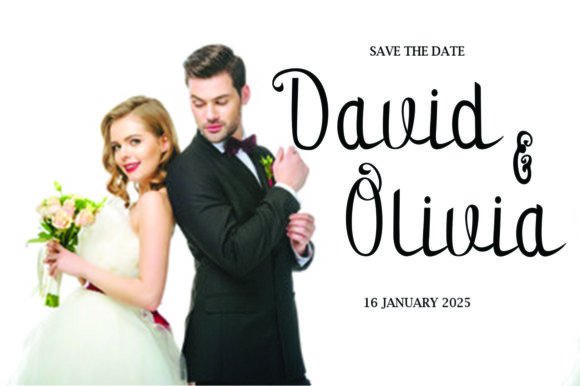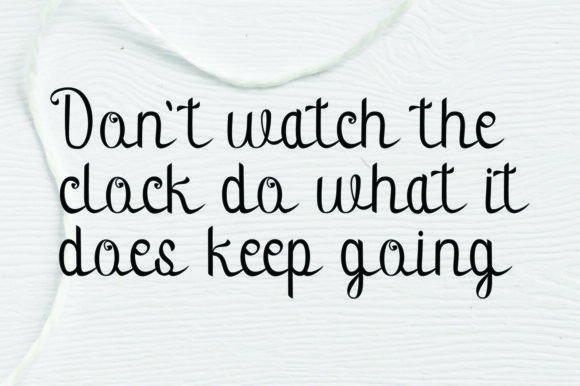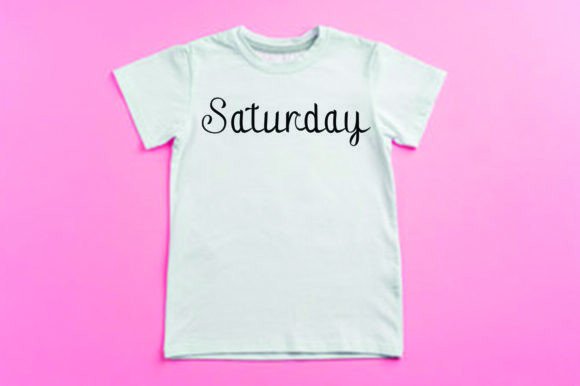
Introduction to Renata Font
Have you ever stared at a blank page, struggling to bring your creative vision to life? For designers, this moment is all too familiar. But what if the perfect font could spark that initial spark of inspiration? Enter Renata Font, a stunning modern script font designed to elevate your next creative project. With its unique, irregular baseline and trendy feminine style, Renata Font is sure to captivate your audience and leave a lasting impression.
Whether you’re crafting a wedding invitation, designing a logo, or simply adding a touch of elegance to a greeting card, Renata Font is the perfect design resource to have in your toolkit. And the best part? This versatile font is available for free download, complete with initial and terminal letters, alternates, and multiple language support.
- High-quality design: Renata Font is a beautifully crafted typeface perfect for creative projects that demand attention to detail.
- Unique characteristics: Renata Font features a unique blend of modern and vintage elements, making it an excellent choice for designers seeking a distinctive look for their creative project.
Honest Review: Renata Font
I recently stumbled upon the Renata Font, and I must say it’s been a game-changer for my creative projects. This high-quality font is a valuable design resource that can elevate any project with its elegant and sophisticated feel.
What works well: ✨ The transparent background of the font makes it incredibly versatile, allowing me to use it for a wide range of design elements, from headers to icons. The font also comes in various weights and styles, giving me plenty of options to experiment with.
Overall, I’m really impressed with the Renata Font. It’s a high-quality design resource that’s perfect for professionals and hobbyists alike. With its elegant design and transparent background, it’s a must-have for any creative project.
- Various weights and styles
- Perfect for creative projects
Renata Font
Renata Font is a high-quality design resource ideal for creative projects. This font is available for free download, allowing designers to incorporate it into their work seamlessly.
Tips for getting the most out of Renata Font include using it with a transparent background to create a clean and minimalist look, and experimenting with different font sizes and styles to add visual interest to your design.
Common use cases for Renata Font include creating logos, brochures, and social media graphics. Its high-quality design and versatility make it an ideal resource for any creative project.